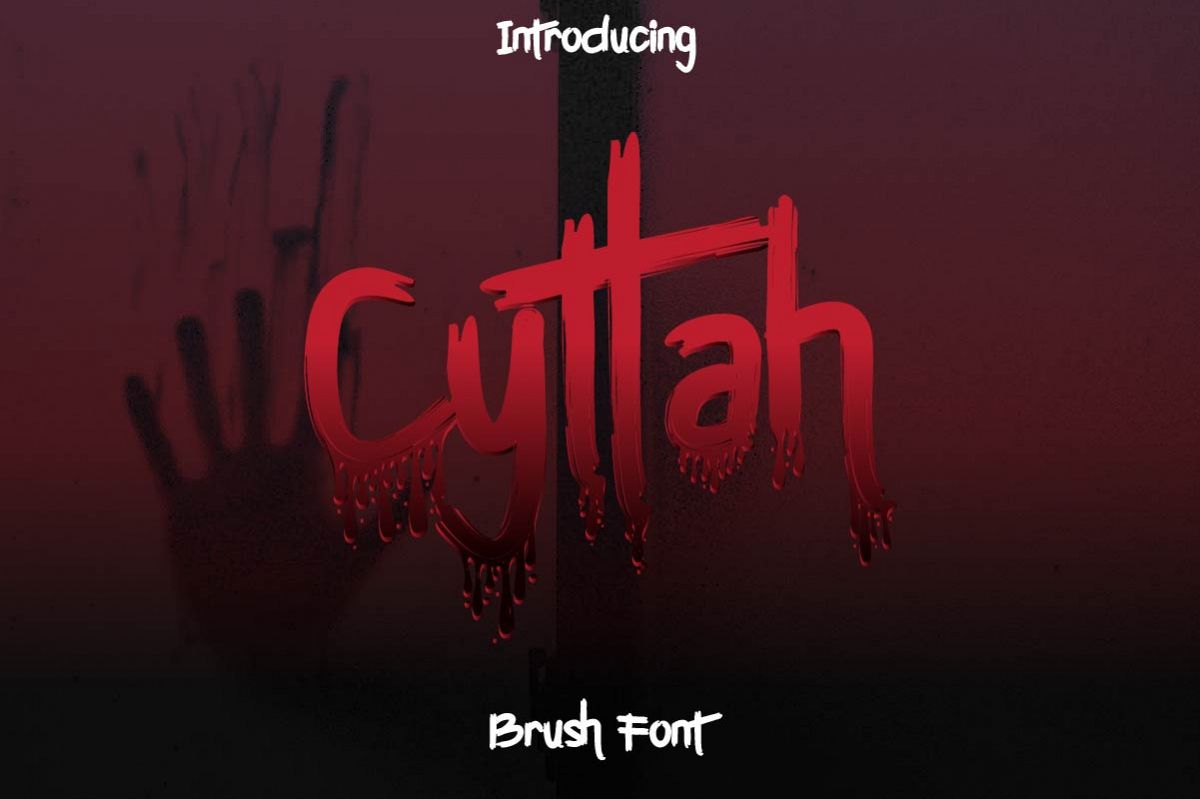
Cyttah
Cyttah Graffiti is HERE!!This is a Graffiti brush font with a dark horror theme. This is a new rebel street yet rock pop culture modern display font, It unique and exclusive glyph.Great for branding, logo, stationery, business card, signage, flyer, brochure, invitation etc.This font will Work on PC & Mac with Simple installations. Accessible in the Adobe Illustrator, Adobe Photoshop, Adobe InDesign, even work on Microsoft Word. It’s also PUA Encoded Characters – Fully accessible without additional design software.Purchase with confidence! =)